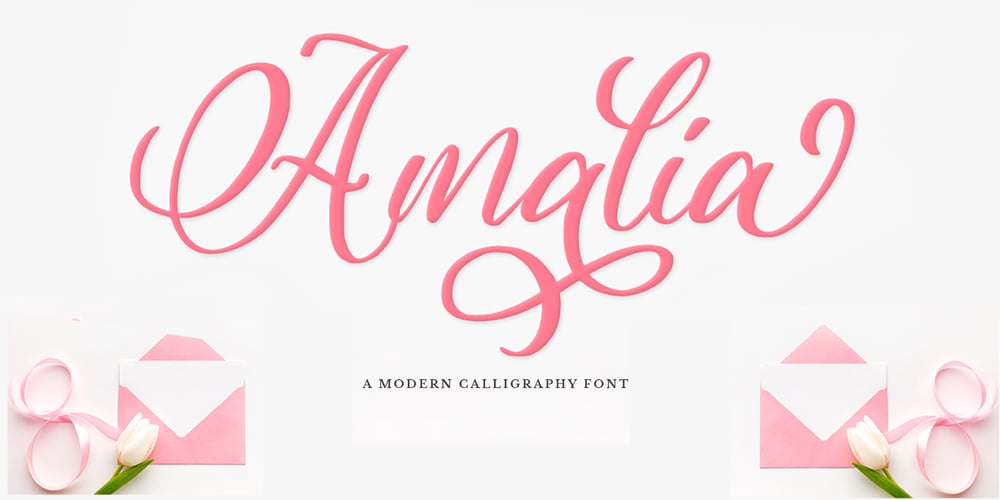
Amalia Font Family was designed by Heri Imanudin and published by Krafted. Amalia contains 1 styles and family package options. Want to impress your guests with stunning invitations? Maybe create event posters that will inspire the audience? It all starts with the right font.Introducing Amalia – A Modern Calligraphy Font.A blend of elegance and refinement, this font gives a whole different note to your printed cards, invitations, and promotions. On top of this, it’s fantastic for packaging and clothing, as well as for any project that requires charm and style.What you’ll get: Multilingual & Ligature Support Full sets of Punctuation and Numerals Compatible with: Adobe Suite Microsoft Office KeyNote Pages Software Requirements: The fonts that you’ll receive in the pack are widely supported by most software. In order to get the full functionality of the selection of standard ligatures (custom created letters) in the script font, any software that can read OpenType fonts will work. We hope you enjoy this font and that it makes your branding sparkle! Feel free to reach out to us if you’d like more information or if you have any concerns.